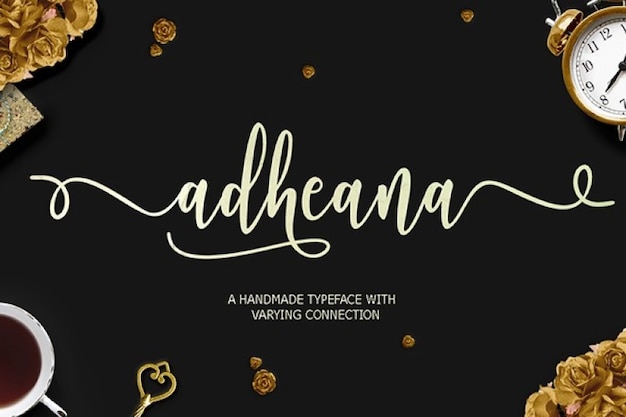
Adheana Script is a handmade typeface with varying connection that will boost your projects. Its elegant and sofisticated style is perfect for invitation cards, backgrounds and flyers. Download it now and start inventing!
Adheana Script (400)